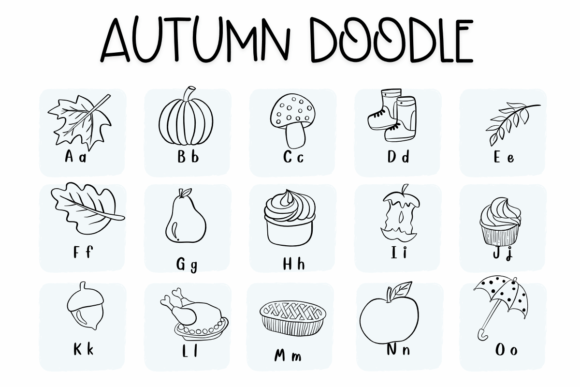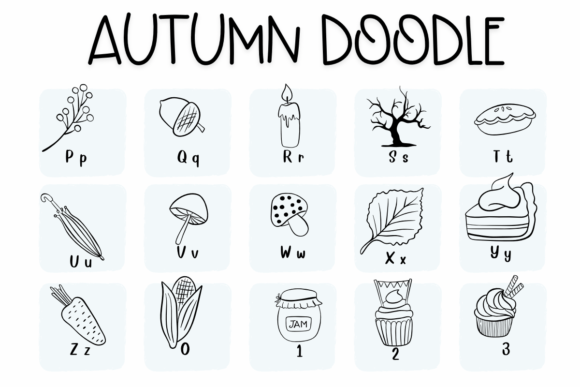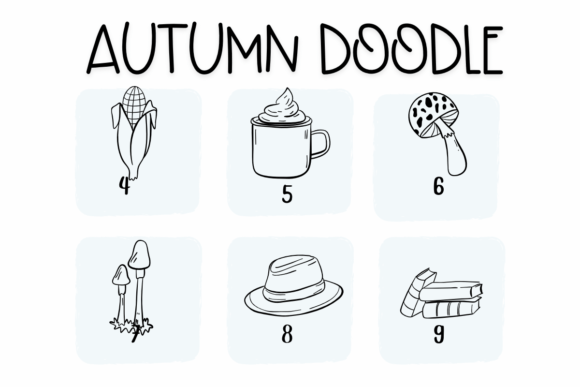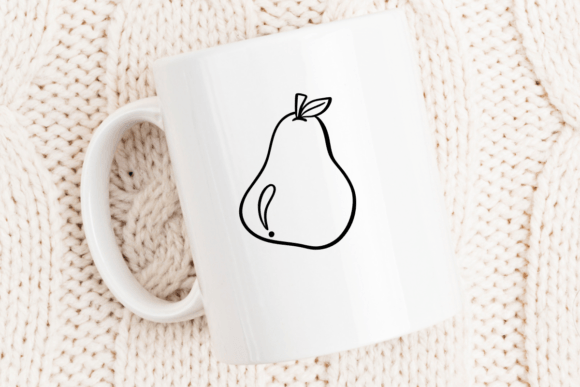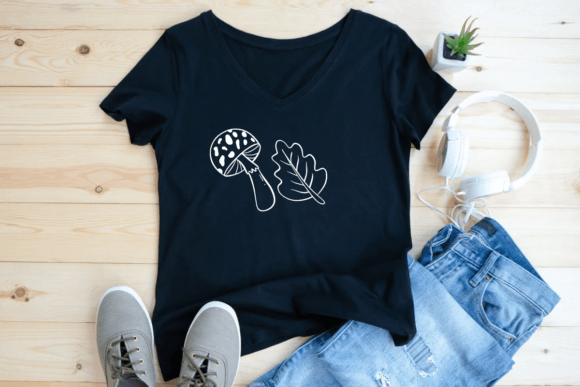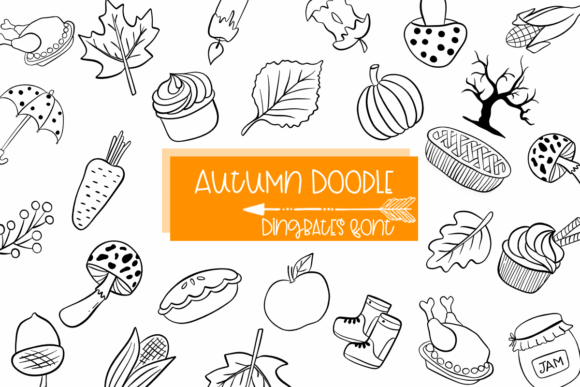
Introducing Autumn Doodle Font: Elevate Your Creative Projects with a Sketched Twist
As the seasons change and autumn leaves start to fall, designers and crafters are on the lookout for fresh inspiration to infuse their projects with a cozy, seasonal charm. That’s where the Autumn Doodle Font comes in – a delightful dingbats font that adds a sketched theme to your creative endeavors. In this article, we’ll dive into the world of Autumn Doodle and explore how this versatile font can enhance your wedding invitations, DIY crafts, decorations, logos, and many other imaginative projects.
What is Autumn Doodle Font?
Autumn Doodle is a unique dingbats font that features hand-sketched illustrations, giving it a warm, organic feel. The font is carefully crafted to bring a touch of autumnal whimsy to your designs, making it perfect for projects that require a seasonal or rustic touch. With its sketched theme, Autumn Doodle Font offers a refreshing alternative to traditional fonts, allowing you to add a personal, artistic flair to your work.
Uses for Autumn Doodle Font
The versatility of Autumn Doodle Font makes it an excellent addition to any designer’s or crafter’s toolkit. Here are some creative ways to use this charming font:
- Wedding Invitations: Add a romantic, autumnal touch to your wedding stationery with Autumn Doodle Font. The font’s sketched illustrations of leaves, flowers, and other seasonal elements will set the tone for a cozy, intimate celebration.
- DIY Crafts: Whether you’re creating handmade cards, gift tags, or decorations, Autumn Doodle Font is the perfect companion. The font’s whimsical illustrations will add a personal touch to your crafts, making them extra special.
- Decorations: Use Autumn Doodle Font to create eye-catching decorations for your home or office. Design seasonal banners, garlands, or signs that showcase the font’s beautiful illustrations.
- Logos and Branding: Autumn Doodle Font can also be used to create unique logos and branding materials. The font’s distinctive, hand-sketched style will help your business stand out and establish a memorable visual identity.
Benefits of Using Autumn Doodle Font
So, why choose Autumn Doodle Font for your creative projects? Here are some benefits that make this font an excellent choice:
- Unique and Versatile: Autumn Doodle Font offers a distinctive, hand-sketched style that can be used in a wide range of creative projects.
- Seasonal and Timeless: The autumnal theme of Autumn Doodle Font ensures that your projects will be relevant and stylish, both during the fall season and beyond.
- High-Quality Illustrations: The font features high-quality, hand-sketched illustrations that will add a touch of sophistication and elegance to your designs.
Tips for Getting the Most Out of Autumn Doodle Font
To maximize the creative potential of Autumn Doodle Font, here are some expert tips:
- Experiment with Colors: Autumn Doodle Font looks stunning in a range of autumnal colors, from warm oranges and yellows to rich browns and reds. Don’t be afraid to experiment with different color combinations to find the perfect fit for your project.
- Mix and Match: Combine Autumn Doodle Font with other fonts or illustrations to create a unique, layered look.
- Pay Attention to Details: The hand-sketched illustrations in Autumn Doodle Font are full of intricate details. Take the time to appreciate these subtleties and use them to add texture and depth to your designs.
In conclusion, Autumn Doodle Font is a delightful dingbats font that offers a fresh, creative twist for designers and crafters. With its hand-sketched illustrations and autumnal theme, this font is perfect for a wide range of projects, from wedding invitations and DIY crafts to decorations and logos. By incorporating Autumn Doodle Font into your creative workflow, you’ll be able to add a touch of seasonal charm and whimsy to your work, setting it apart from the ordinary.